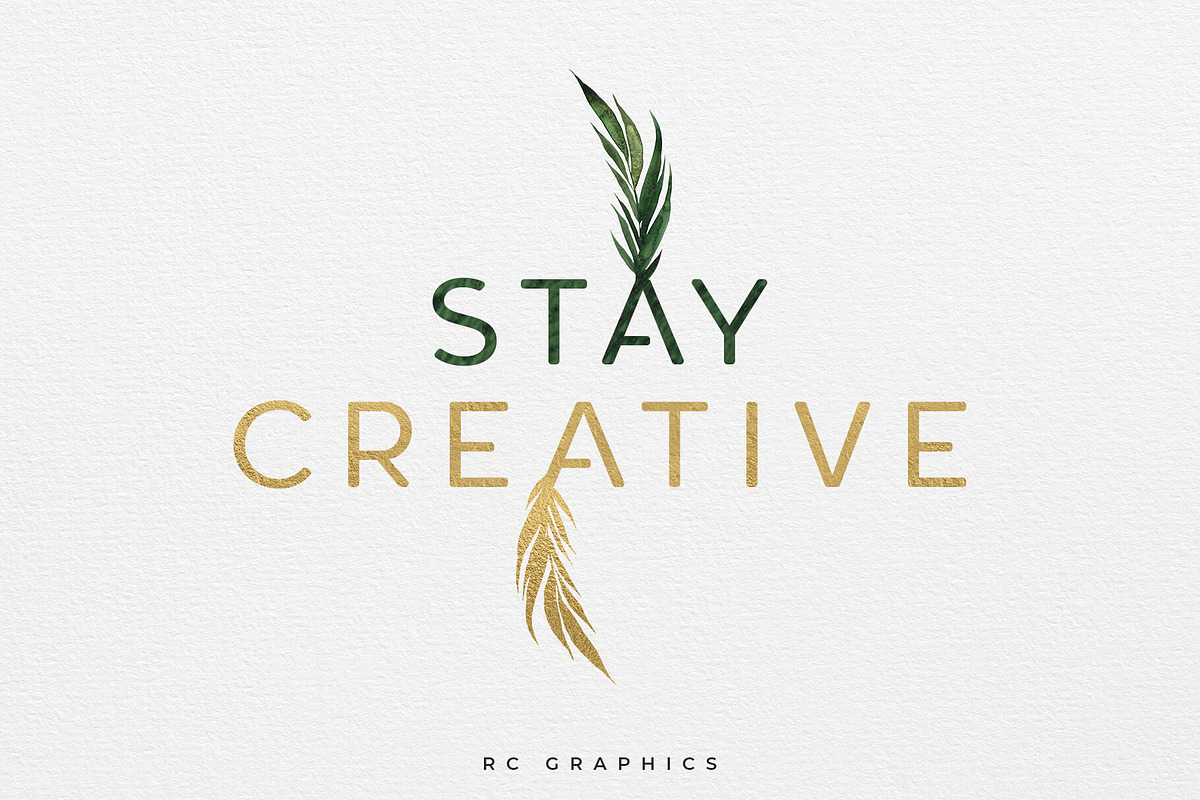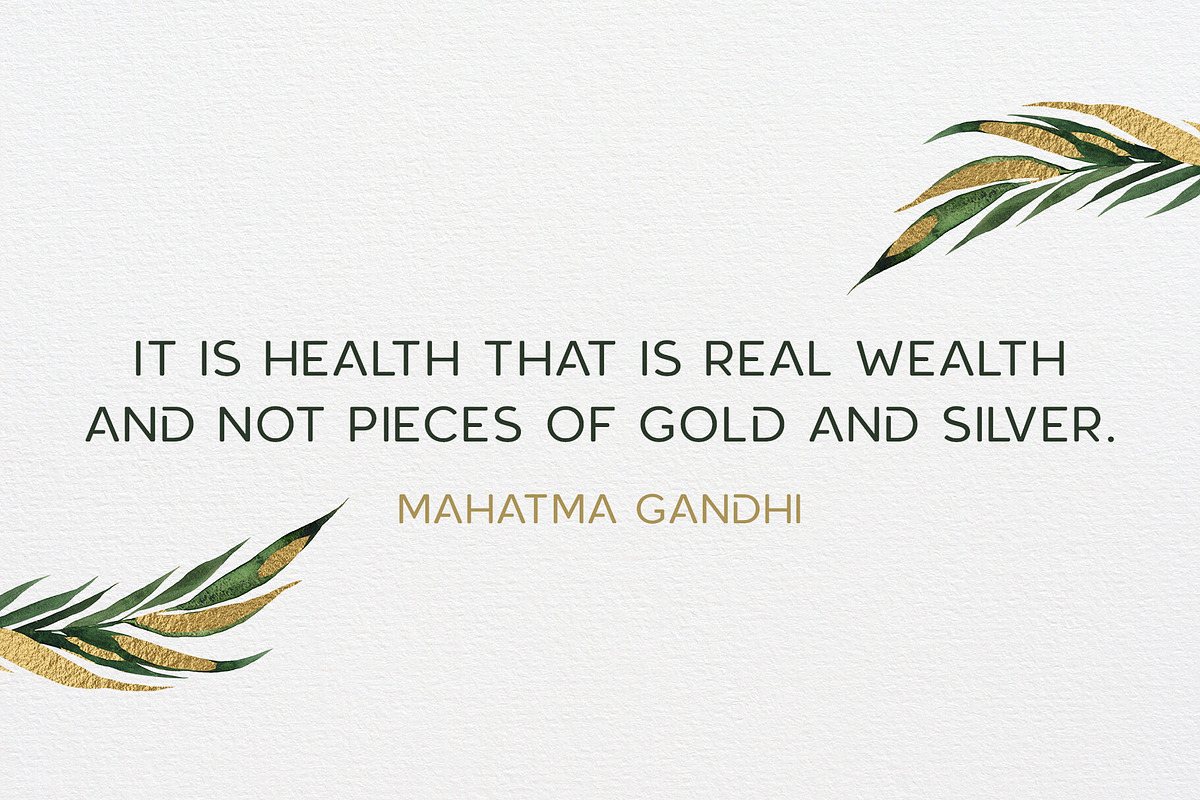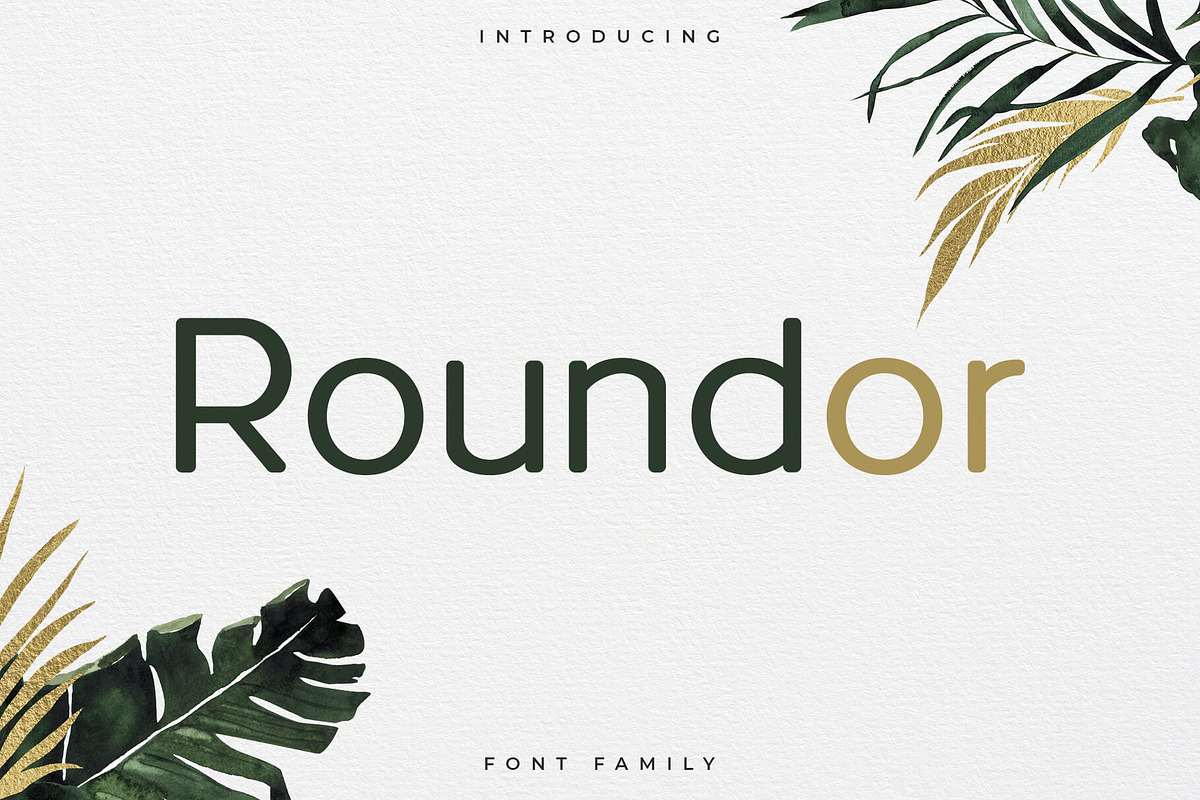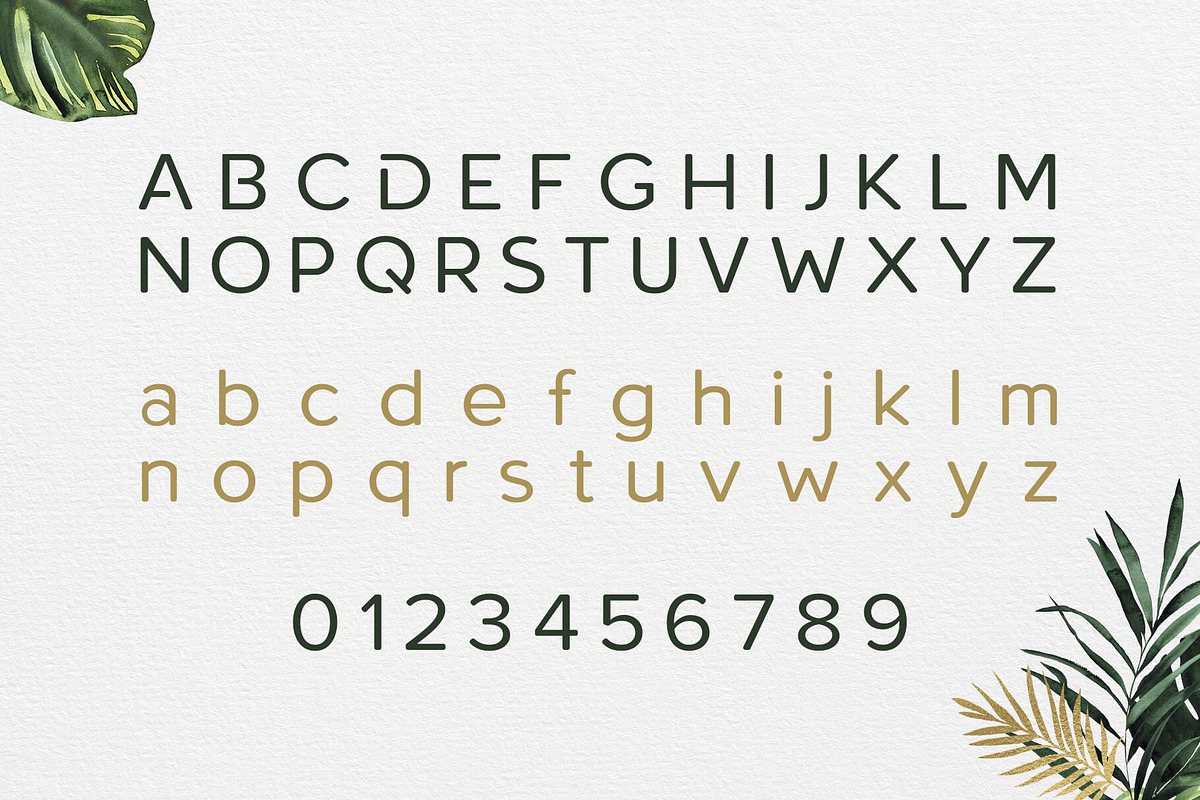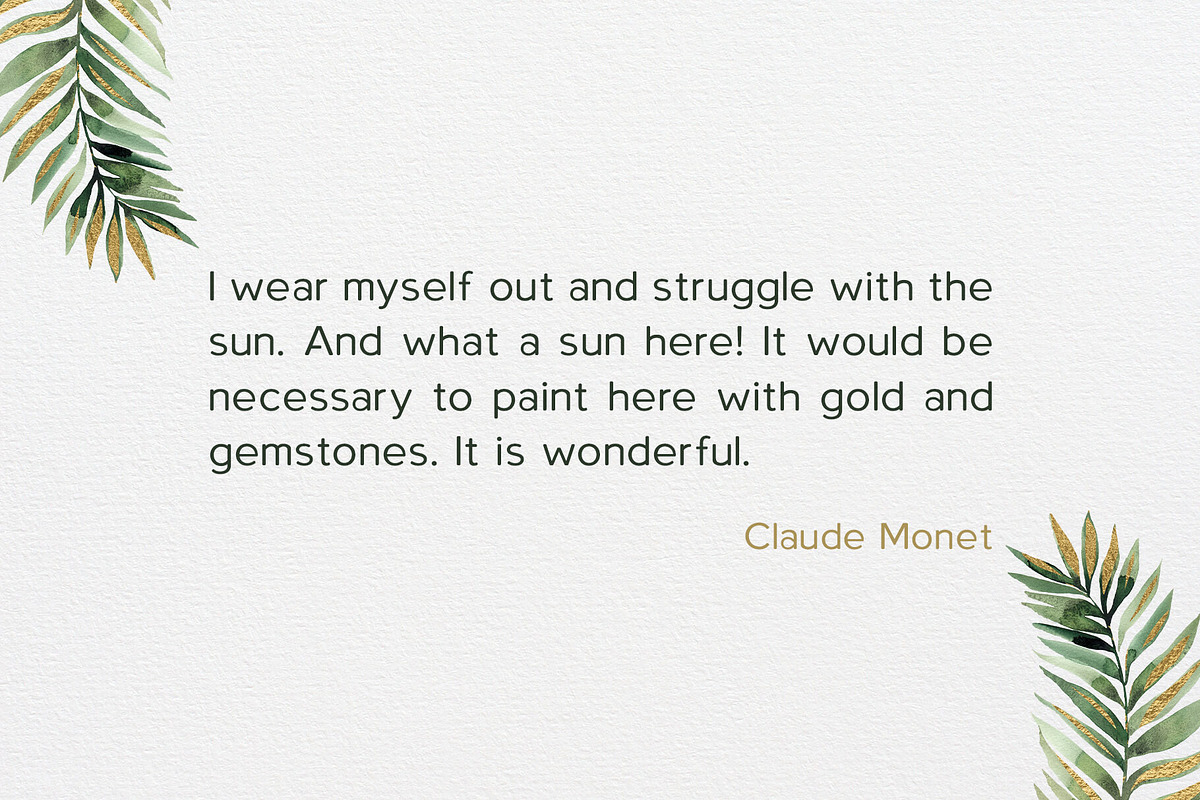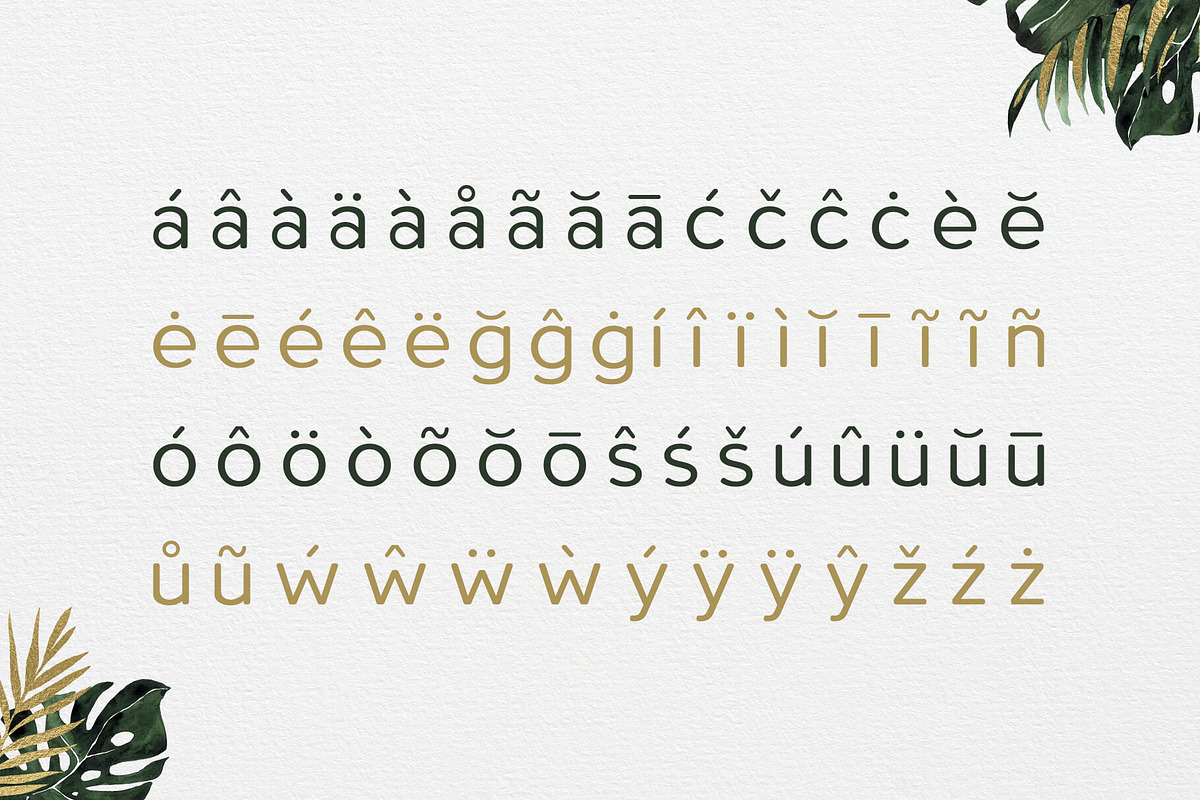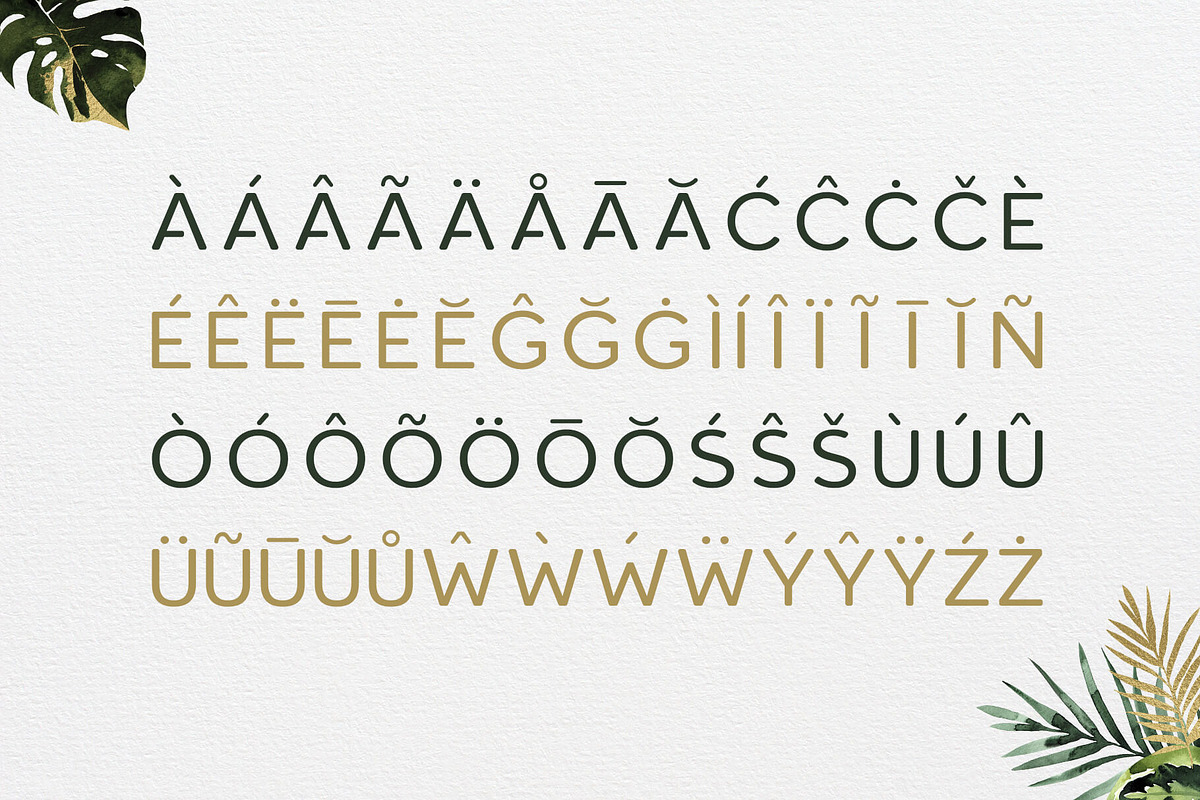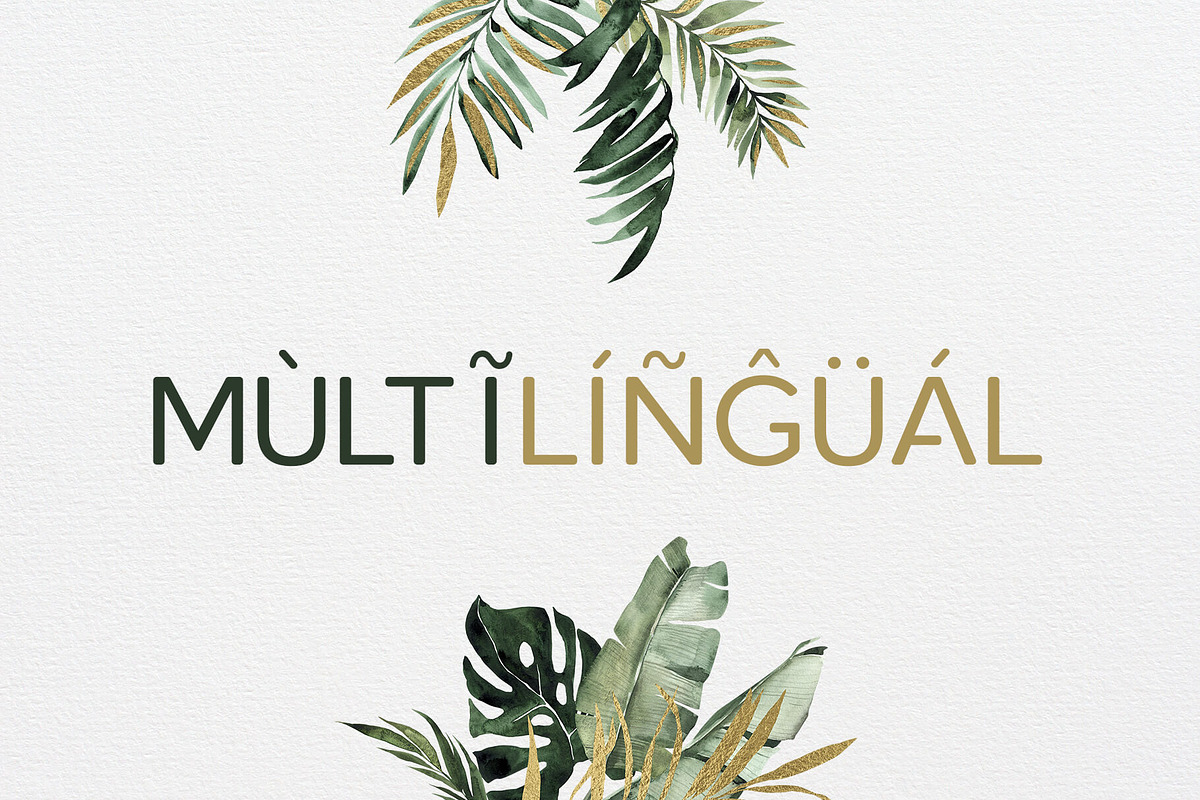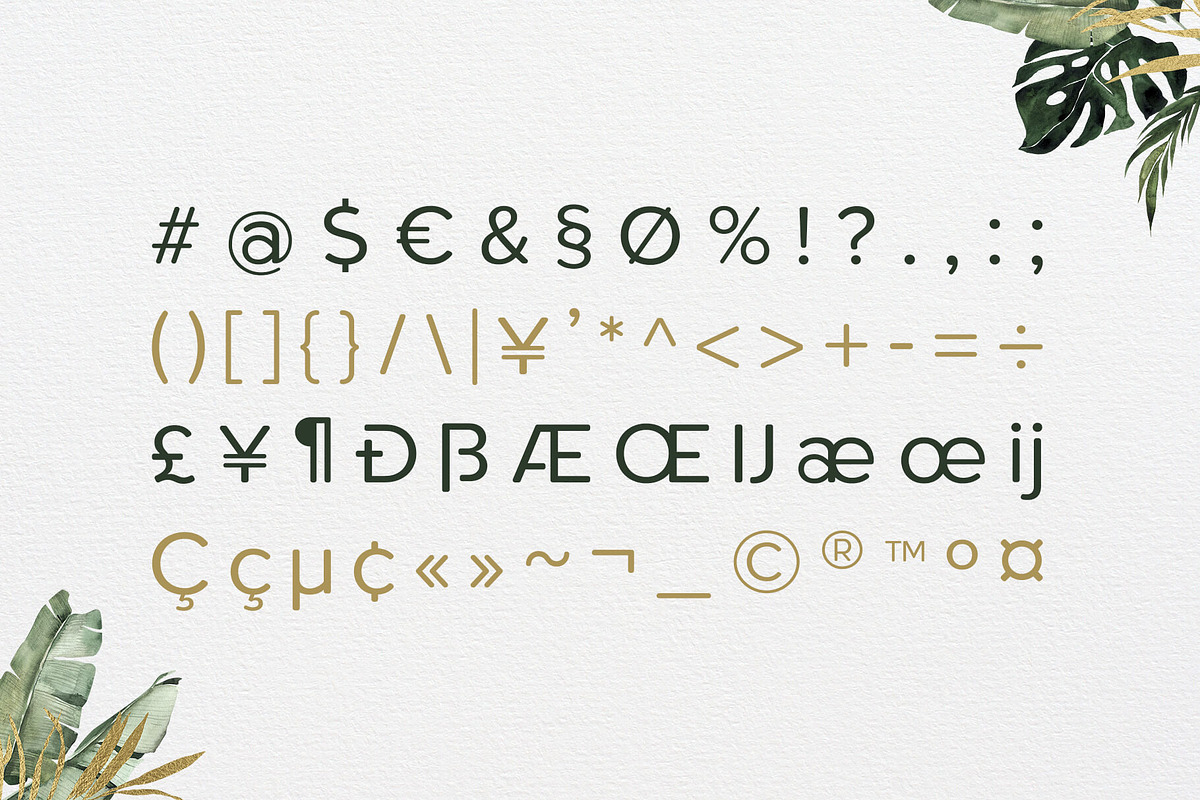
Roundor Font Family - Sans Serif
Roundor is a modern and clean rounded sans serif font. It’s a versatile font family designed for strong, classic branding. Roundor is perfect for any branding, logos, magazines, videos, weddings, quotes, print, product packaging, website, clothing designs and much more.
- Uppercase letters
- Lowercase letters
- Multilingual (Foreign language characters)